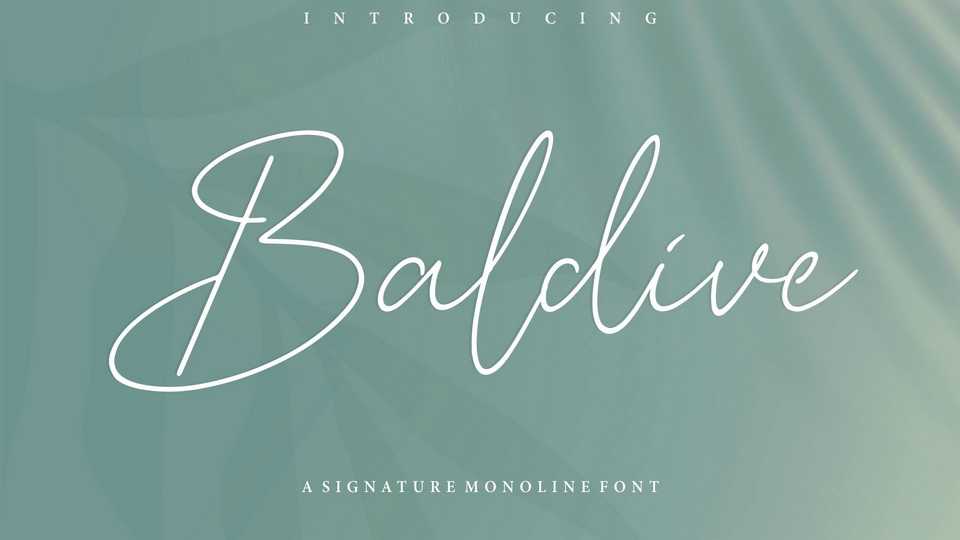
Baldive Signature Script Font › Fontesk – Fonte Grátis
Download Baldive font, a trendy and stylish signature monoline script. Baldive is very suitable for product packaging, branding projects, magazine, social media, wedding or just used to express words over the background.
Designer: Balpirick Studio